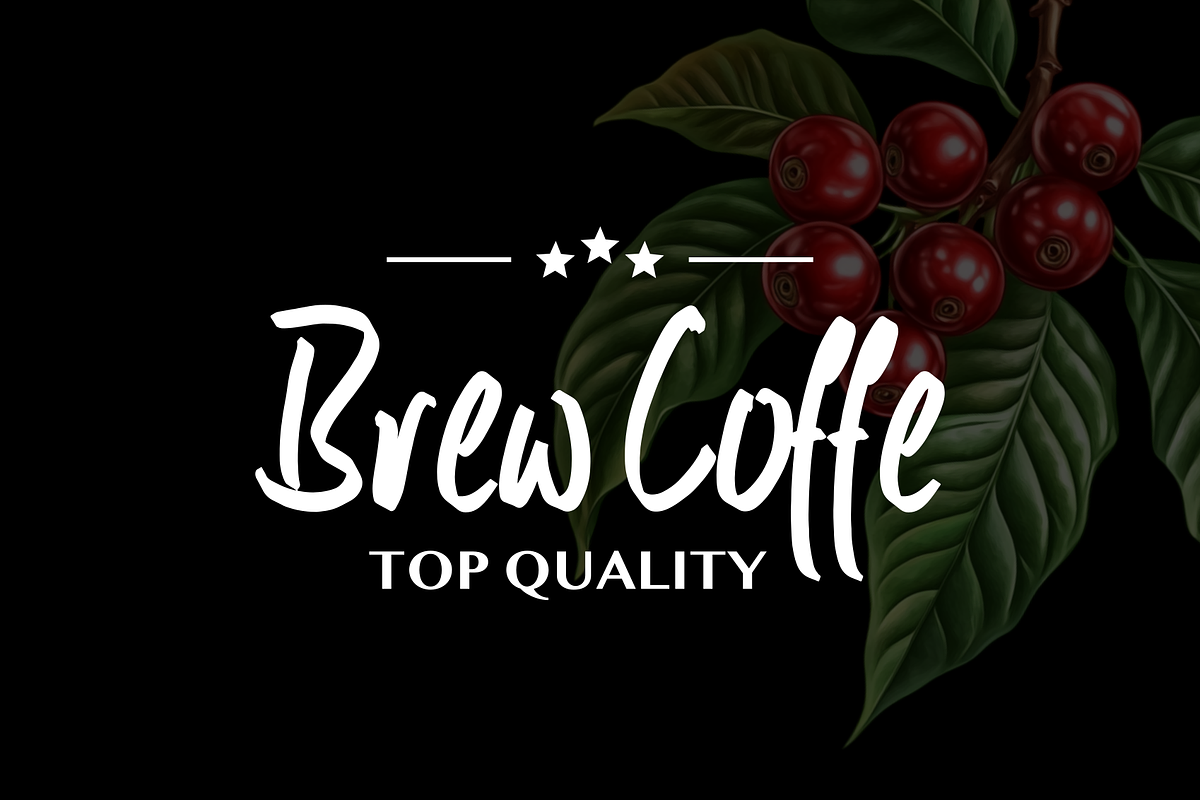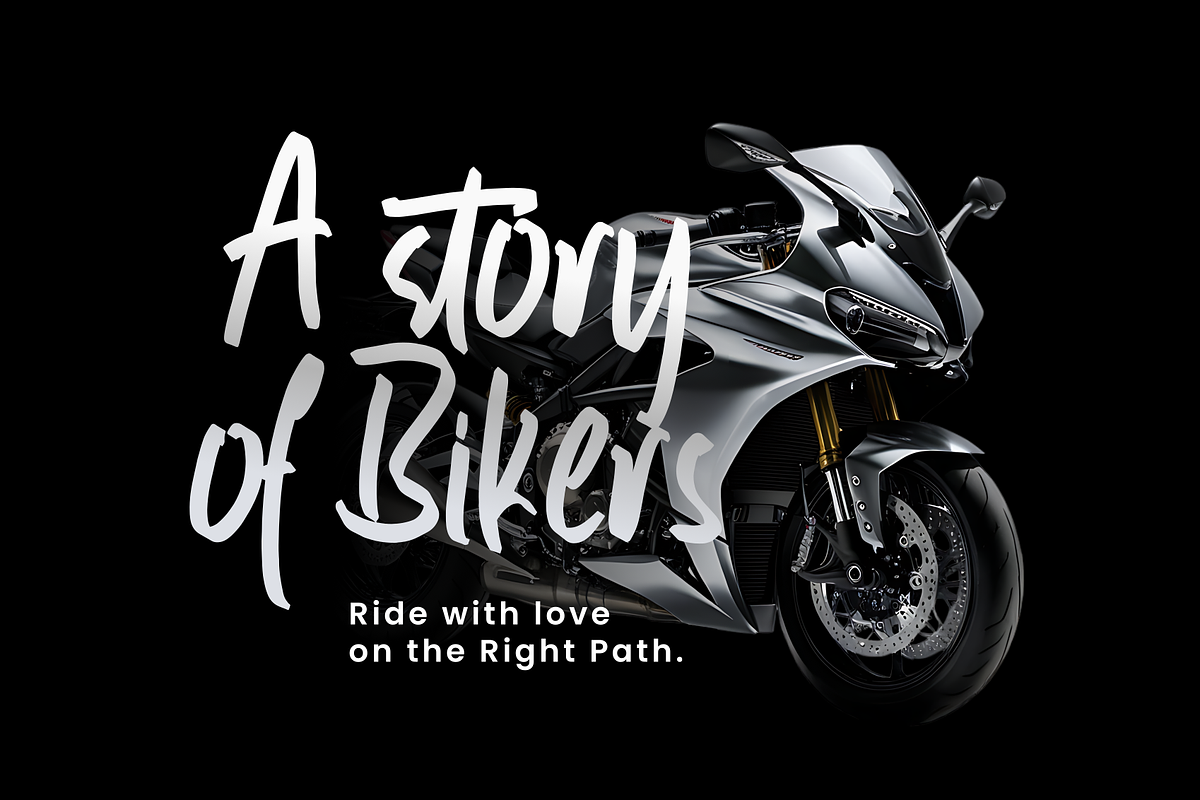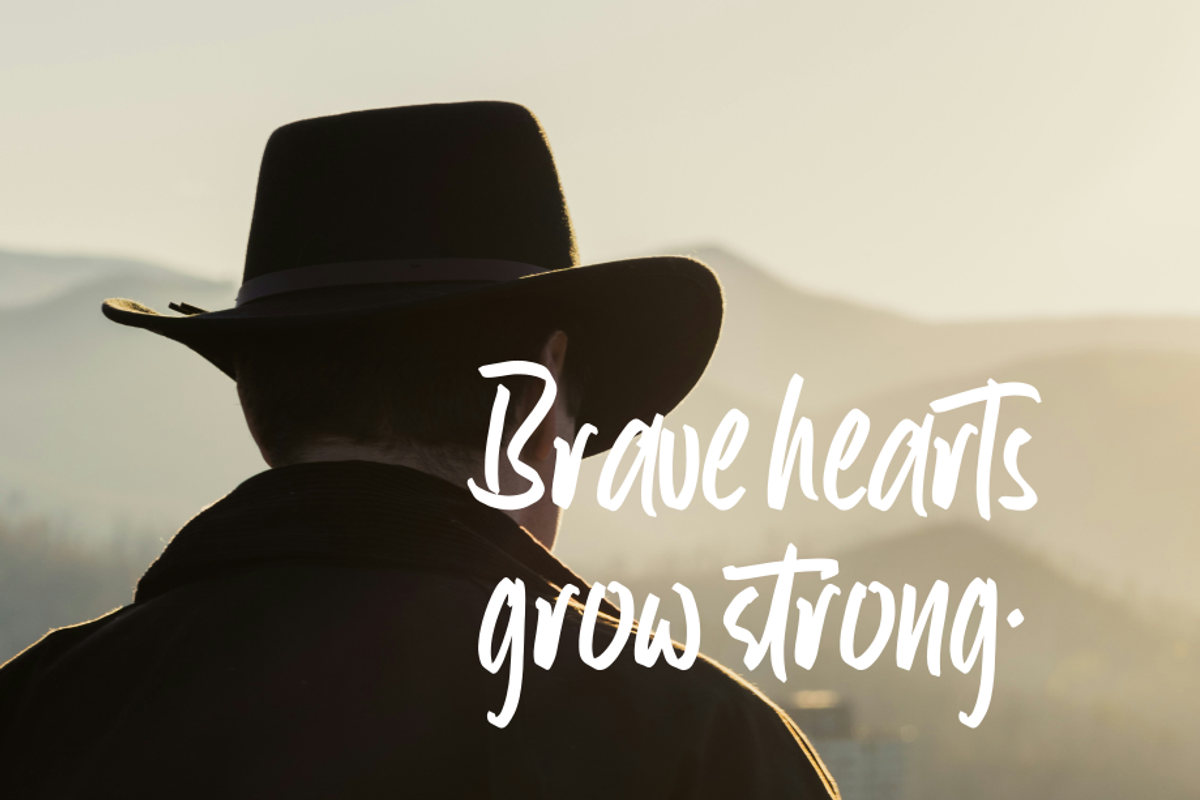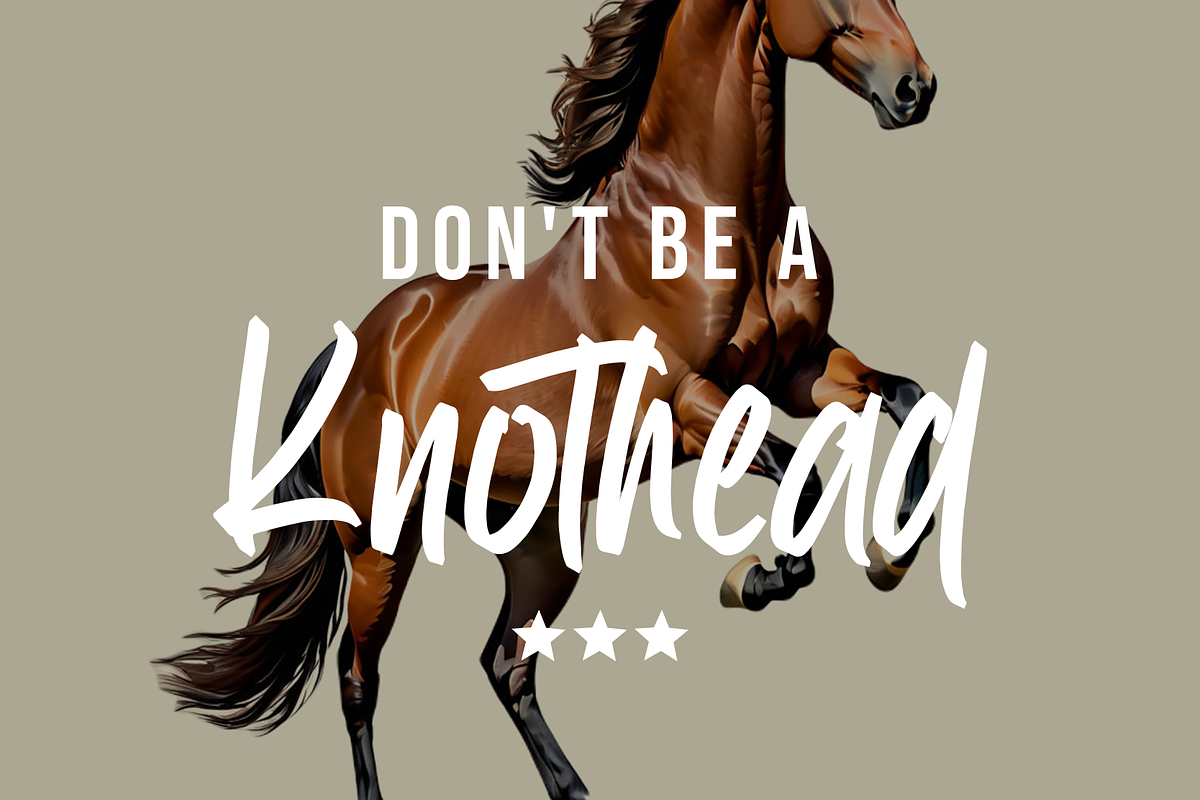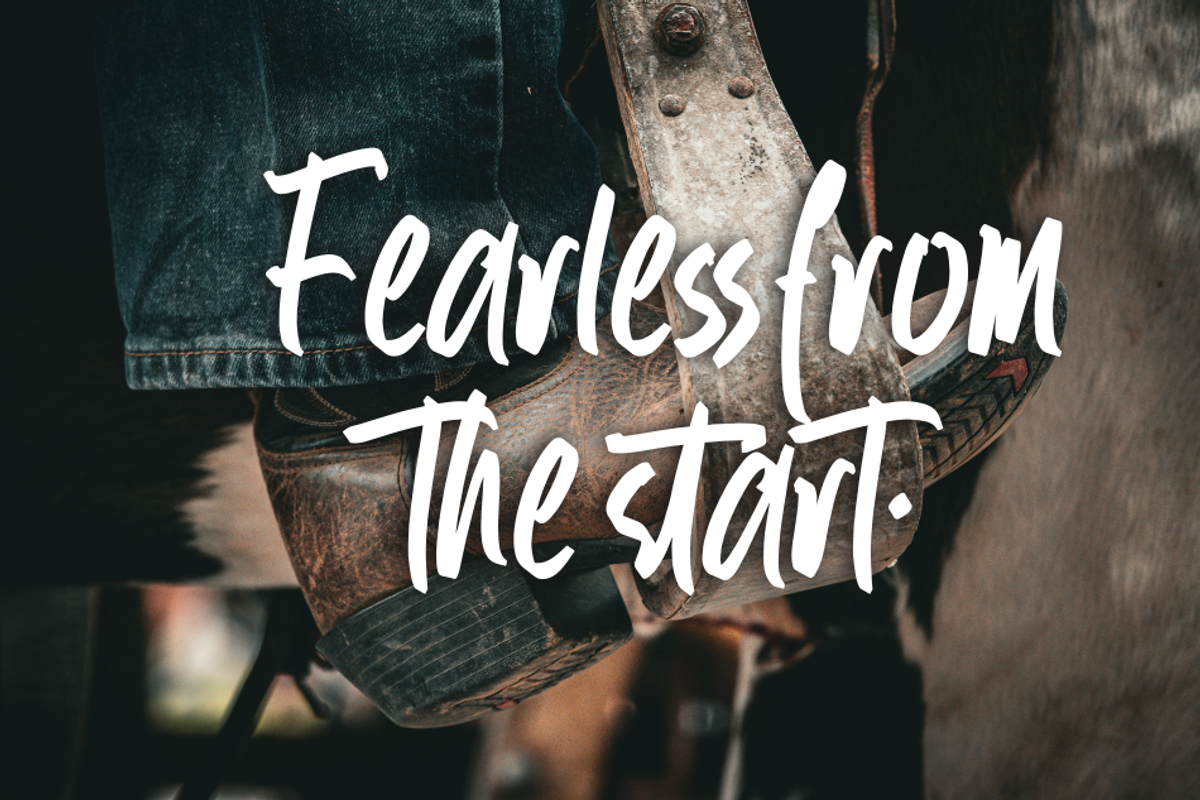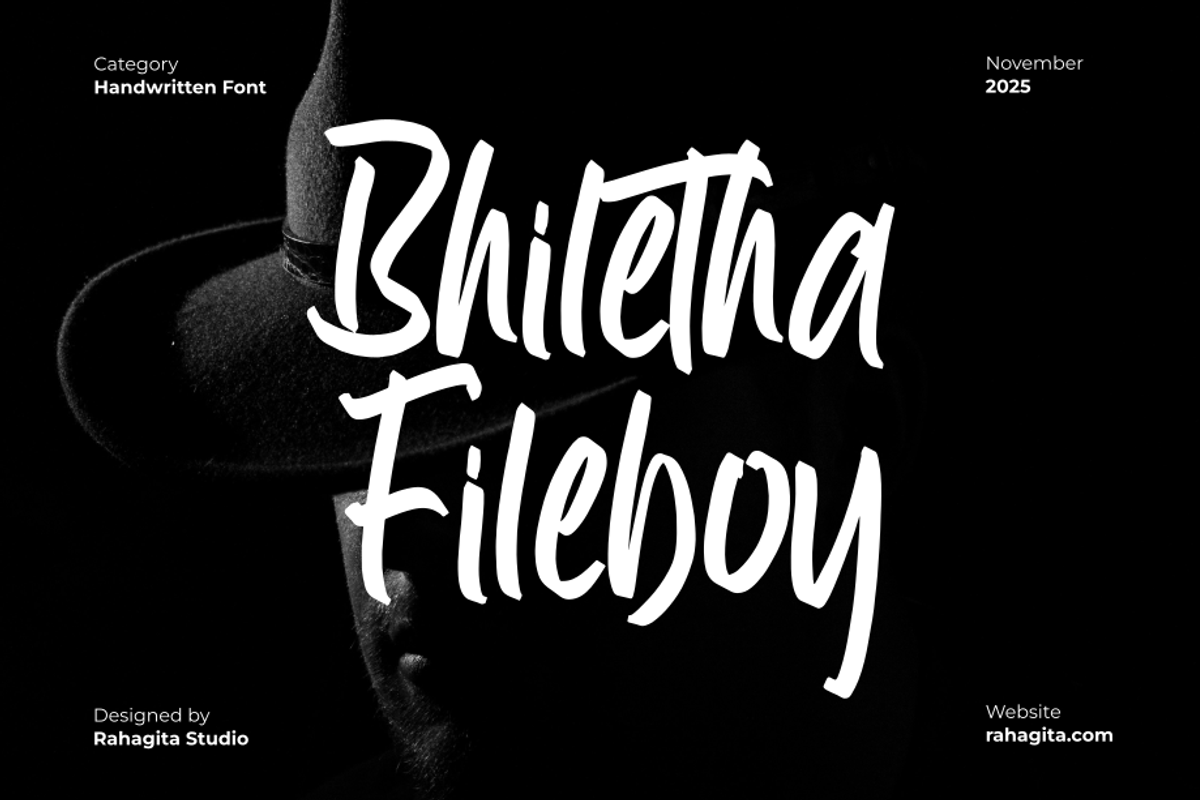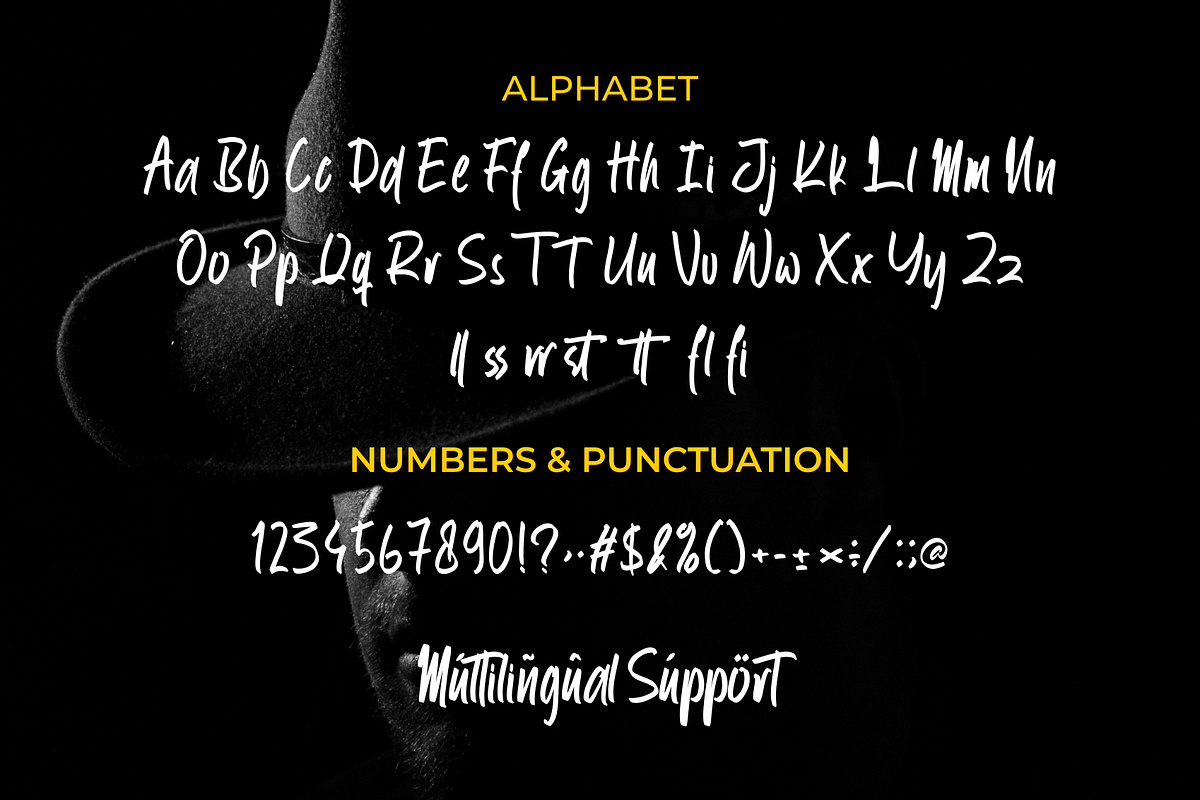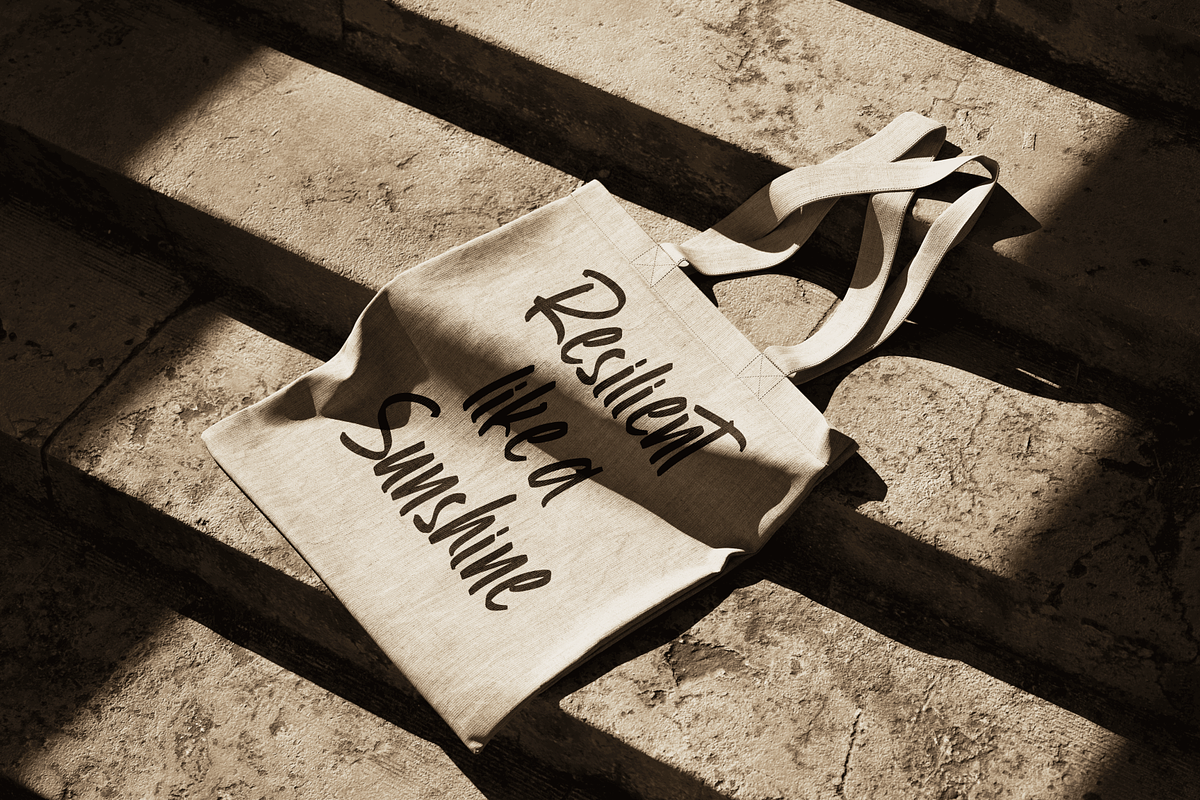
Bhiletha Fileboy
Introducing Bhiletha Fileboy, a bold and expressive handwritten brush font crafted by Rahagita Studio. With its confident strokes and raw energy, this font embodies the spirit of adventure, courage, and freedom. Perfect for branding, poster design, apparel prints, quotes, coffee packaging, biker merchandise, and logo typography, Bhiletha Fileboy brings an authentic hand-drawn vibe to your creative work.
Whether you’re designing for modern masculinity, wild expression, or fearless motivation, Bhiletha Fileboy delivers powerful personality and striking readability. Fully equipped with ligatures and multilingual support, this font is ready to make your words stand out with strength and character.